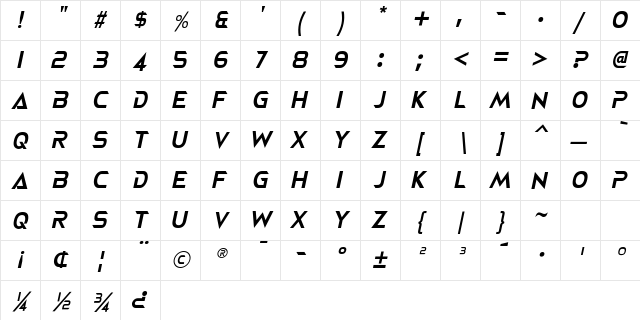
NEOTERIQUE Italic
Design Context for NEOTERIQUE Typeface
NEOTERIQUE takes a measured approach to typography — its balanced proportions and neutral character make it a reliable workhorse for both digital and print work. The slanted form adds forward momentum and visual energy.
Pro Tip: Try NEOTERIQUE for annotation and caption copy alongside an upright companion — the contrast in angle creates a dynamic but ordered typographic system.